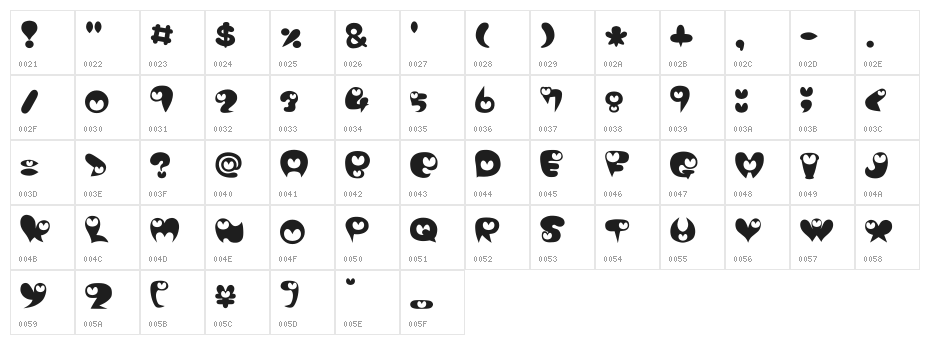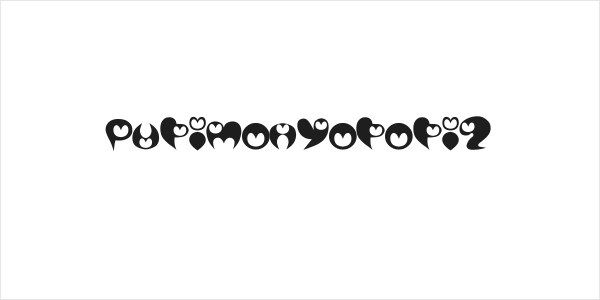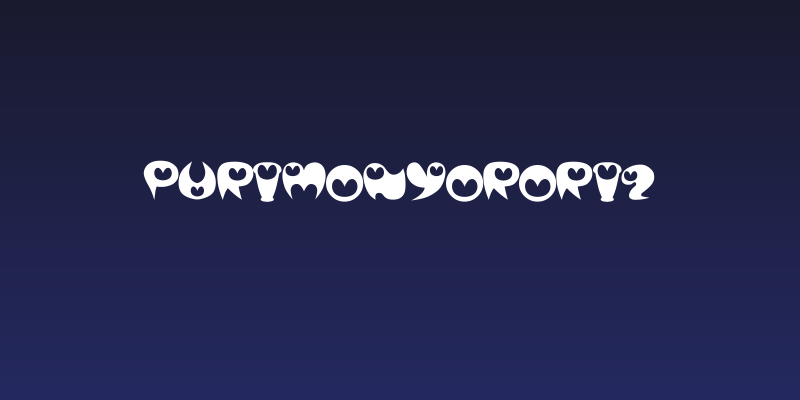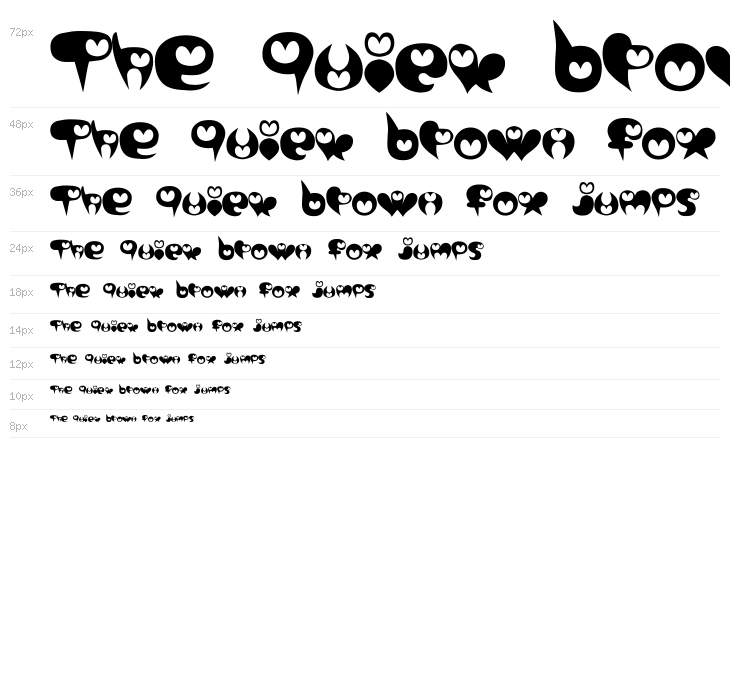
purimonyorori2 Font
purimonyorori2 Description
This playful and whimsical font features bold, rounded characters with heart-shaped cutouts, giving it a unique and charming appearance. The letters are highly stylized, with a consistent use of thick strokes and rounded edges, creating a sense of fun and creativity. The heart motifs are integrated into each character, making it ideal for designs that aim to convey love, joy, or a sense of playfulness. The numbers and special characters follow the same design principles, ensuring a cohesive look across all elements.
| Proposed Projects | Perfect for Valentine's Day cards, children's books, playful branding, and love-themed event invitations. |